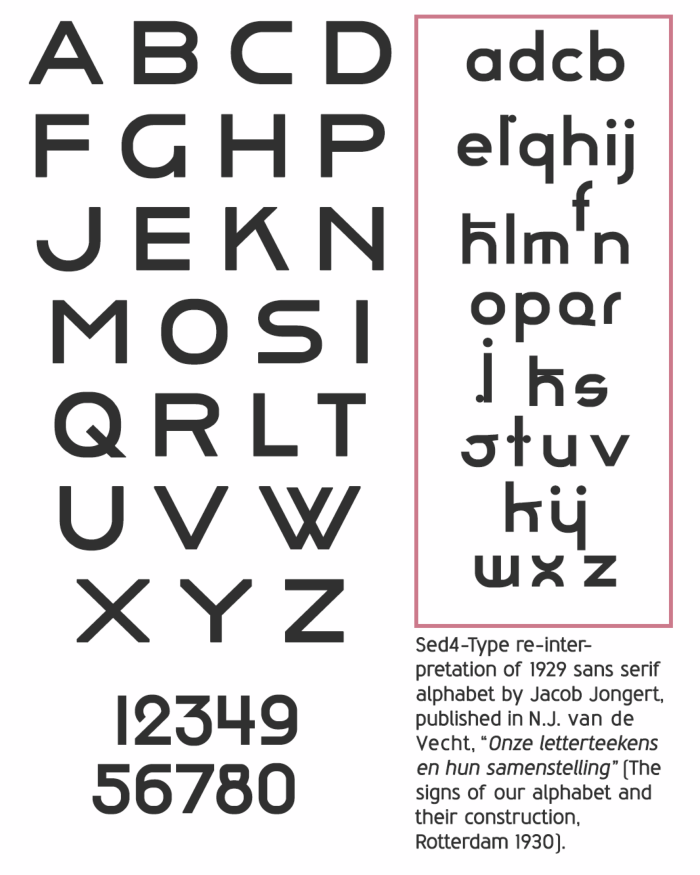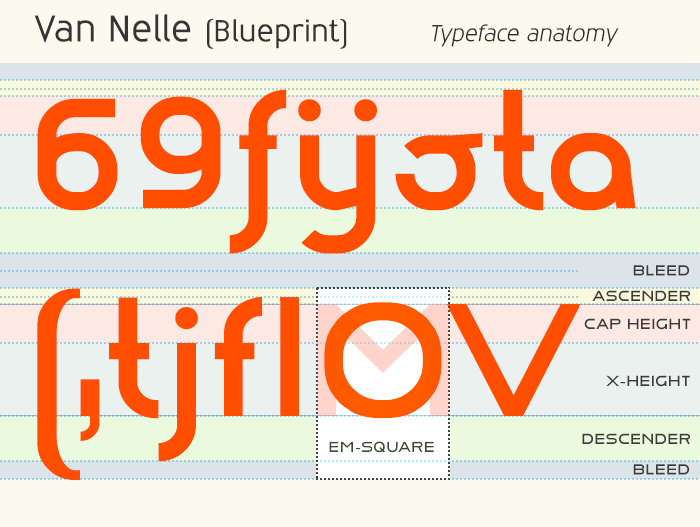
• VAN NELLE (Blueprint) — Geometric modernist sans
☛ THE SOURCE
A re-interpretation of the 1926 geometric sans serif alphabet system reproduction by Jacob Jongert, published in a 1930 sourcebook by N.J. van de Vecht. The geometric uppercase set of the alphabet system is what would later become the famous sans serif capitals which he used for lettering throughout many of his Van Nelle materials.
☛ THE FONTSTRUCTION
Attempt at making a convincing recap of the original alphabet by Jacob Jongert as it was shown in the 1930s sourcebook, and extrapolate that into a full functional font. The decision to go with a small grid sparked a number of limitations in terms of the design freedom that forced some inevitable changes. But the general idea sort of became not to make it a revival, but rather more or less a faithful revision. One that would still be instantly recognizable yet didn't necessarily had to be all about accuracy.
☛ —The small grid design made sure this wasn't happening anyway!
But, for instance, the most striking difference between the two fonts (their weight) in fact is such a byproduct for one of those limitations. Something FS's small grid couldn't properly reproduce, so VAN NELLE (Blueprint) has a slight stronger weight, making the font somewhat of a bold style version of the original. This in addition provided me with slight extra freedom to inplement a little personal touch for further manicure of the font's finer details. Which allowed me to cope with some of the optical clunkiness that come with a fatter face and the grid based design.
Besides these circumstantial differences, which were basically beyond my control, I've also made some intentional changes to make the typeface more practical to use. The changes include things like the significantly lowered ascender height, the slight different width for certain letters, larger tittle (dot above i, j & ij), and several more. despite these changes I believe it very much still reflects what Jongerts once invisioned for the system.
☛ SOME NOTES ON THE ORIGINAL AND ITS CREATOR
Jacob Jongert (1883-1942) was a advertising designer from the Netherlands. After varied studies, including being Roland Holst’s assistant and an acquaintance and colleague of S. H. de Roos [who brought the Arts & Crafts ideas of William Morris to the Netherlands and devoted his career to book design and typography] with whom Jongert experimented with several printing techniques and discovered graphic design as his ideal art form.
¶ In 1923 Jongert rolled in a unique and long-term collaboration with the Van Nelle company, where he became head designer, a position he held until 1940. The Van Nelle company had an extremely modern approach towards advertising (they even commissioned Cassandre to do a poster) and Jongert created for the firm a recognizable image with clear shapes, powerful letters and primary colours, totally Dutch avant-garde in style, and with a strict and rigorous approach directly linked to De Stijl principles. The corporate identity he created has become a milestone in the design world.
¶ The lettering, however, is the driving force that ties it all together. The style is a straightforward set of plain, mono-linear, sans serif capitals in a style that just started to come into fashion in the late 1920s, early 1930s with the rise of functionalism and geometric type design. Yet, while these ideas were already thrown out there, its clever simplicity plus the systematic and cohesive way Jongert implemented his lettering was unusual at the time. The square and minimal construction of the forms allowed the letters to contract and expand to fit any situation, yet maintain a consistent and recognizable appearance throughout the Van Nelle line. ¶ Something we only recently have learned to appreciate is to see his hand crafted system amid the current advancements in variable-font technology, which offers a similar kind of flexibility to typeface designs. A quality that certainly placed him well ahead of its time.
What I particulary like about Jongert's original is the stuff that is going on in the lowercase set of the alphabet, which are those quirky lowercase letter inventions that are different from the more traditional modernist sans, but sadly the lowercase letters were pretty much never used in his works.
I created a simple PDF typeface specimen for those who want to see the high-resolution preview.
I honestly admire this effort of yours in bringing these beautiful, forgotten fonts to life. Thanks again, compañero!
Digitizing the obscure type relics from the past is one of those things I really enjoy doing. Something I value for numerous reasons. The neverending informative hunt and additional research is often remarkably helpful and more than welcome new knowledge. But also from a historic stand I believe it's valuable and worthwhile.